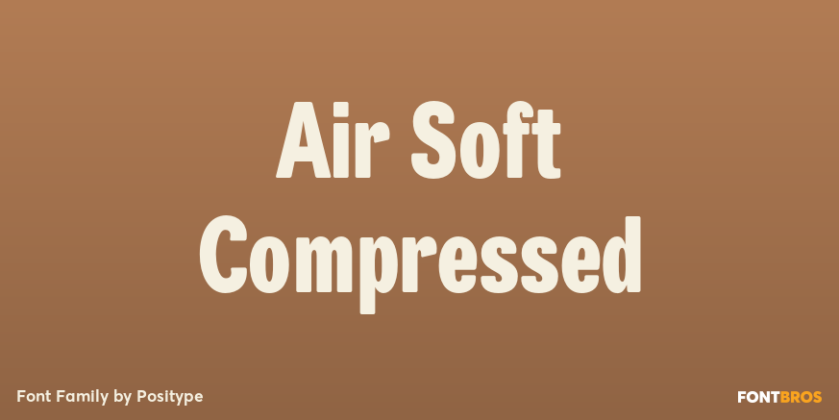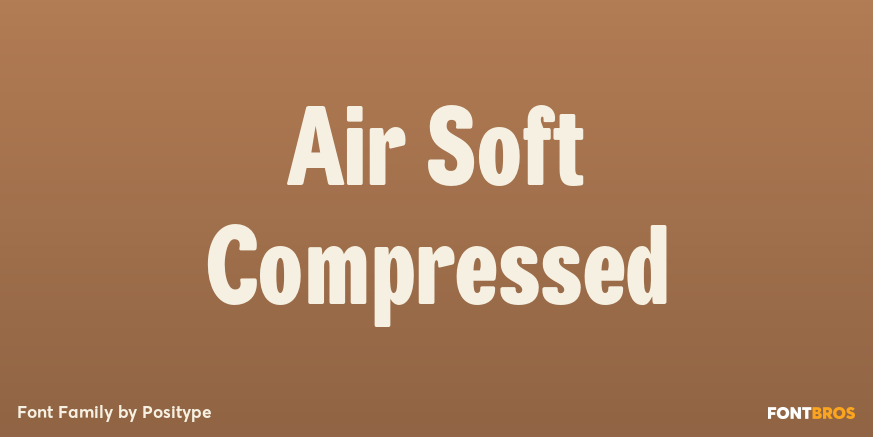
About Air Soft Compressed
Air Soft\’s development came as a natural progression in my exploration of Air\’s skeleton. I wanted to see Air \’softer? in some of the test typesettings I was using during its development? so, well, I went about deriving a visual methodology to soften…